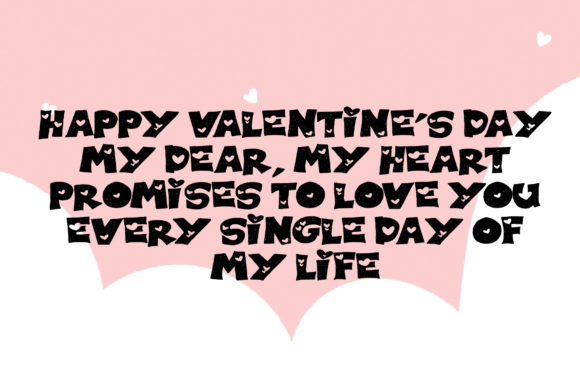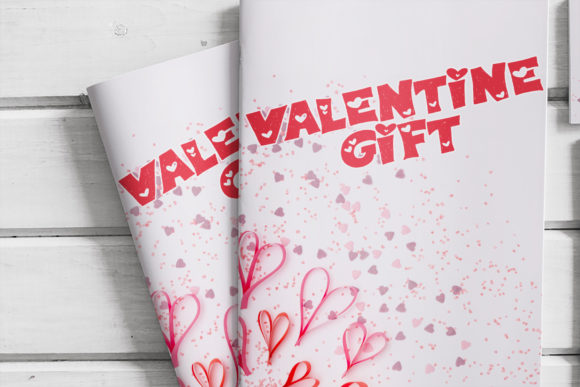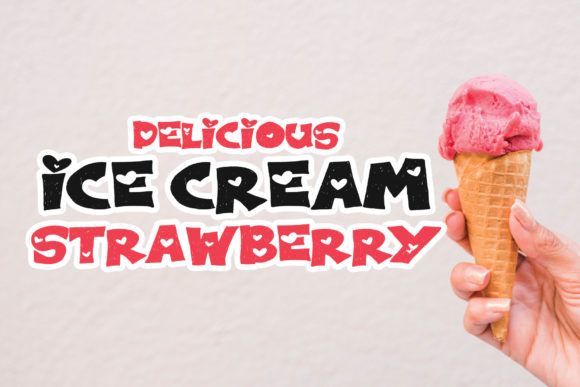
Introduction to Puppy Love Brush Font
Love is Love.
Puppy Love Brush is inspired by the power of love and beautifully illustrates this in each letter It radiates authenticity and romanticism and is perfect for taking any Valentine’s Day designs to the next level.
Key Features of Puppy Love Brush Font